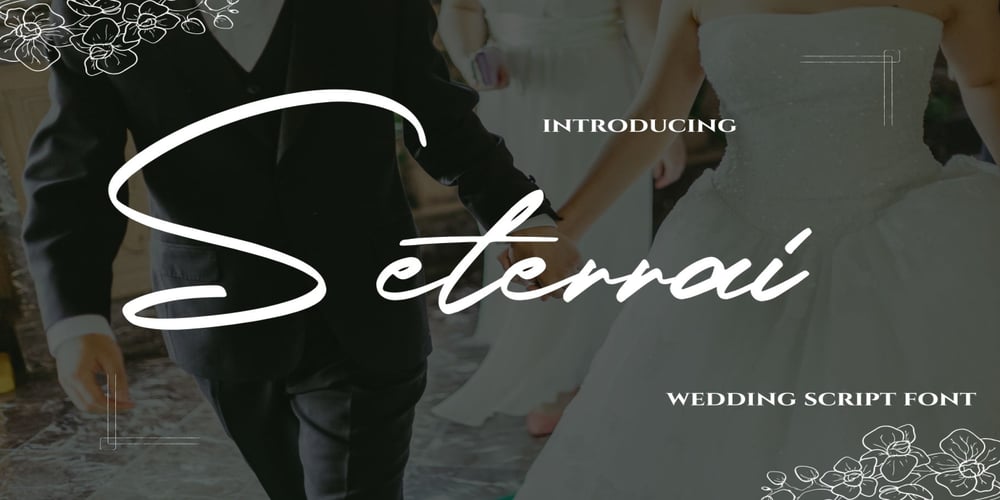
Seterrai
Seterrai font
Seterrai Font Family was designed by A. Pat Hickson and published by Dream Font. Seterrai contains 1 styles and family package options. Seterrai is chic modern calligraphy font.Seterrai includes full set of lovely uppercase and lowercase letters, multilingual symbols, numerals, punctuation and ending lowercase swashes. The font has smooth texture, so would be perfect for all types of printing techniques+you can do embroidery, laser cut, gold foil etc